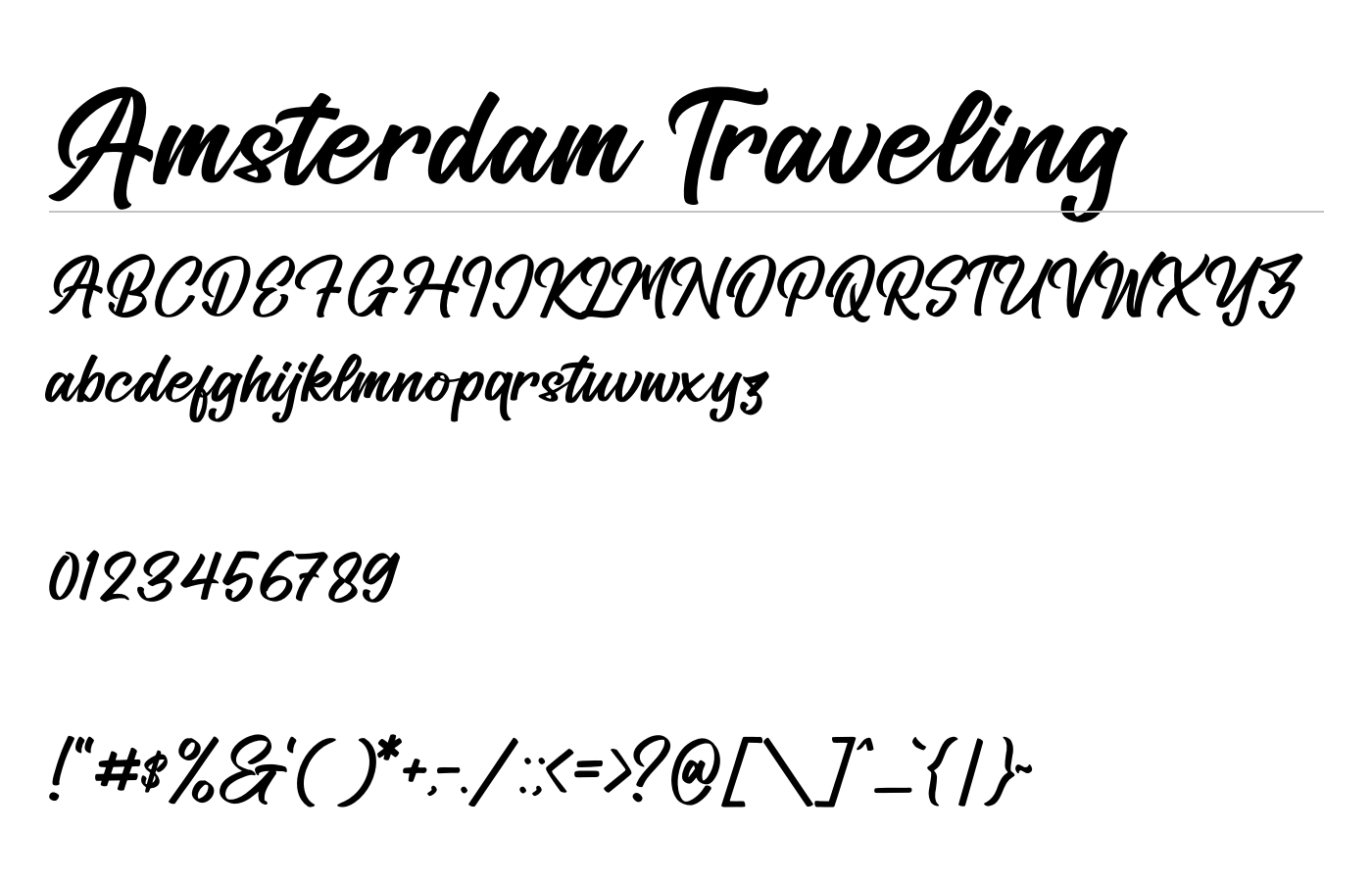
Amsterdam Traveling is a lively and elegant script font with smooth, flowing strokes that give it a handcrafted, contemporary feel. Its medium weight and slightly condensed letterforms make it perfect for stylish branding, invitations, and headlines where a personal yet polished touch is desired. This font is ideal for projects that want to convey warmth, creativity, and sophistication with a modern twist.
Amsterdam Traveling Font
About Amsterdam Traveling Font
| Font family | Amsterdam Traveling Font |